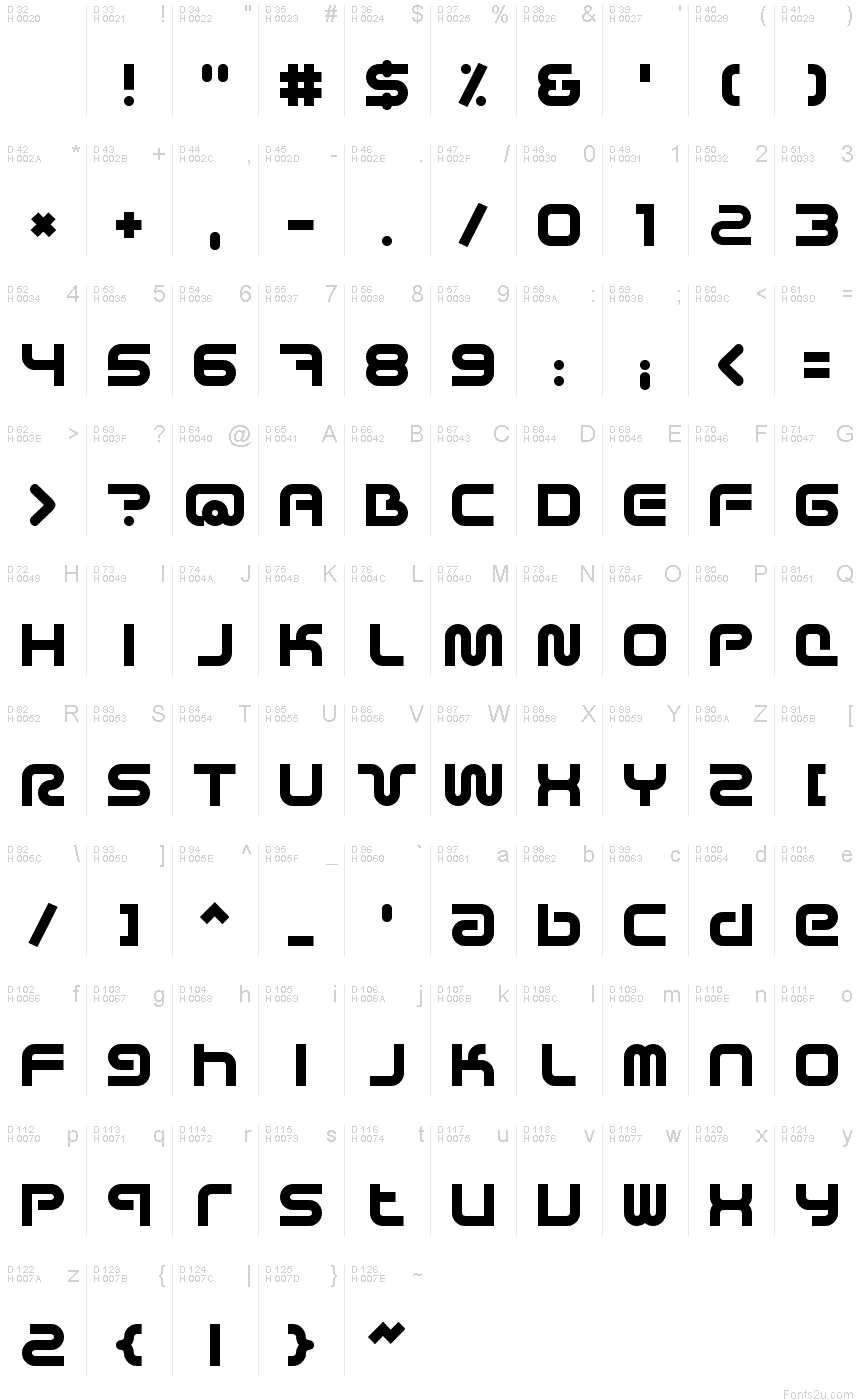
Sci Fied X Bold from dustBUST Fonts is a free futuristic display font built from broad, solid strokes. Its rounded bends meet squared cuts, giving the letters a machine-made silhouette with a sci-fi edge. The forms are compact and forceful.
It is most convincing in game logos, where its enclosed shapes can resemble panels on a spacecraft. Tech packaging and music posters also suit its smooth geometry and sharply cut inner spaces. This is lettering made for science-fiction branding.
Sci Fied X